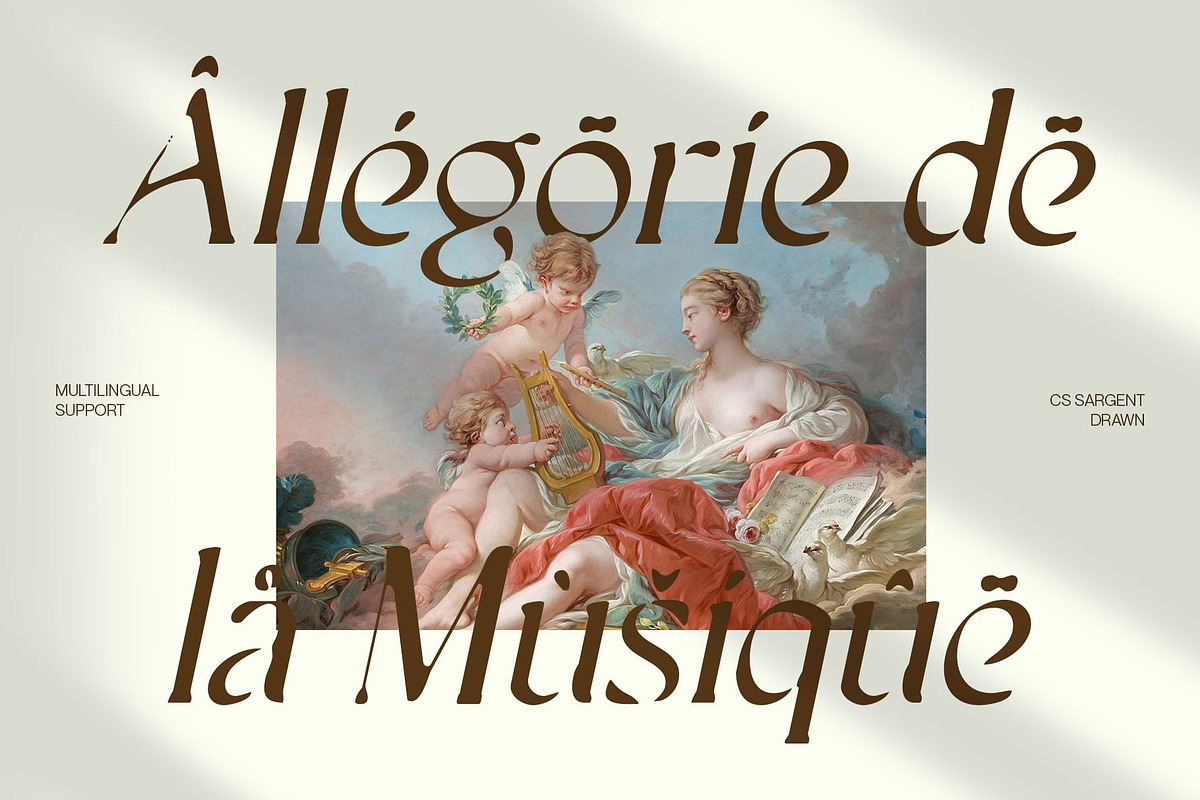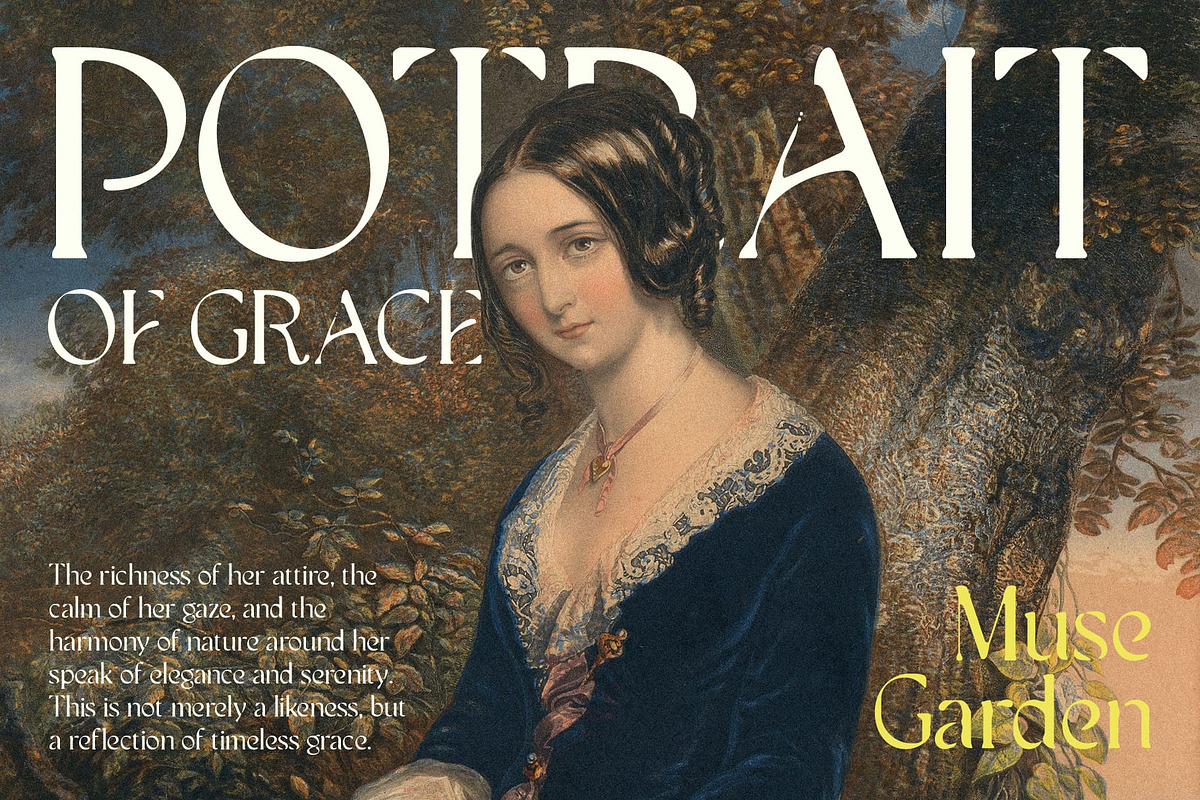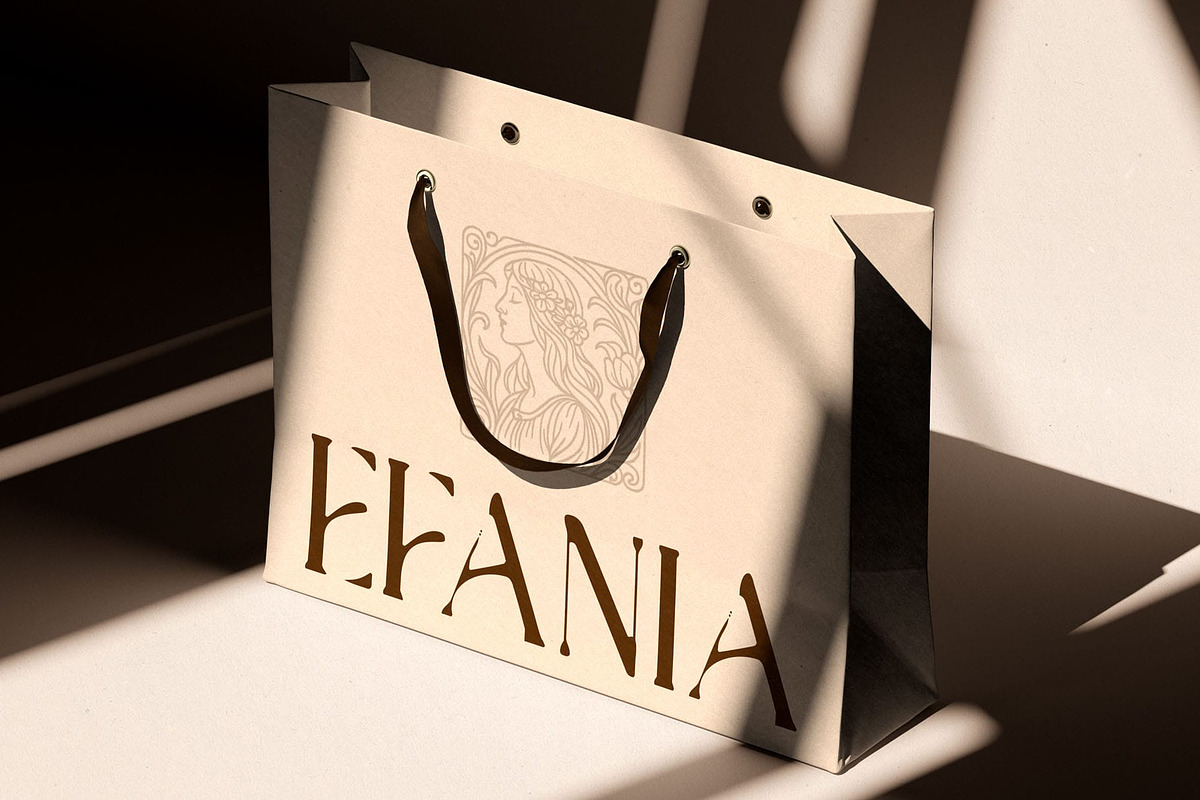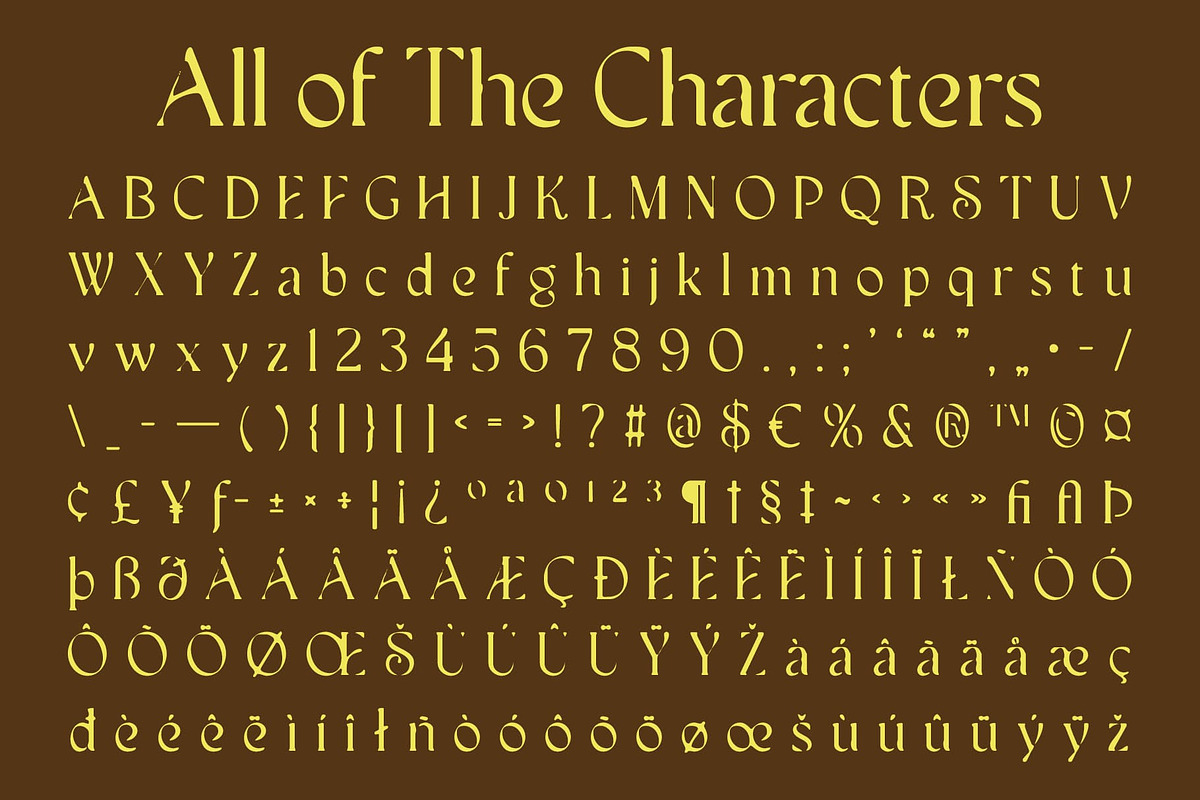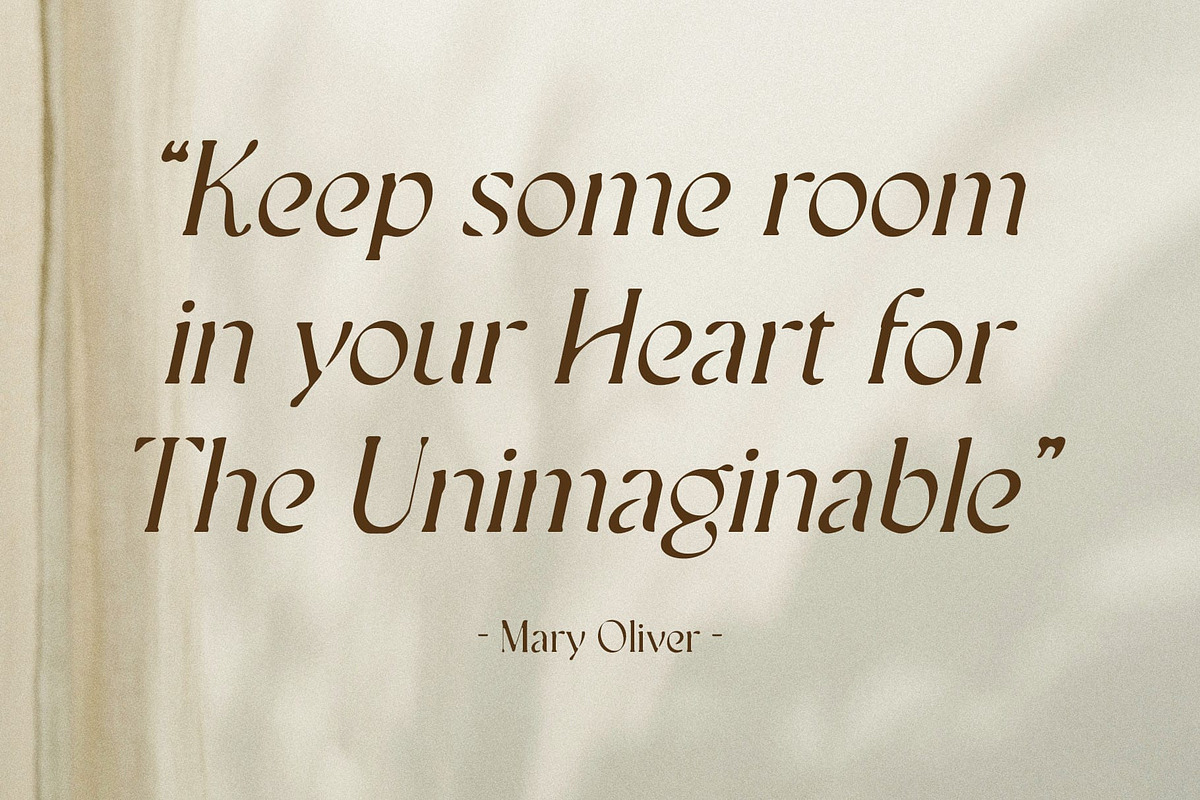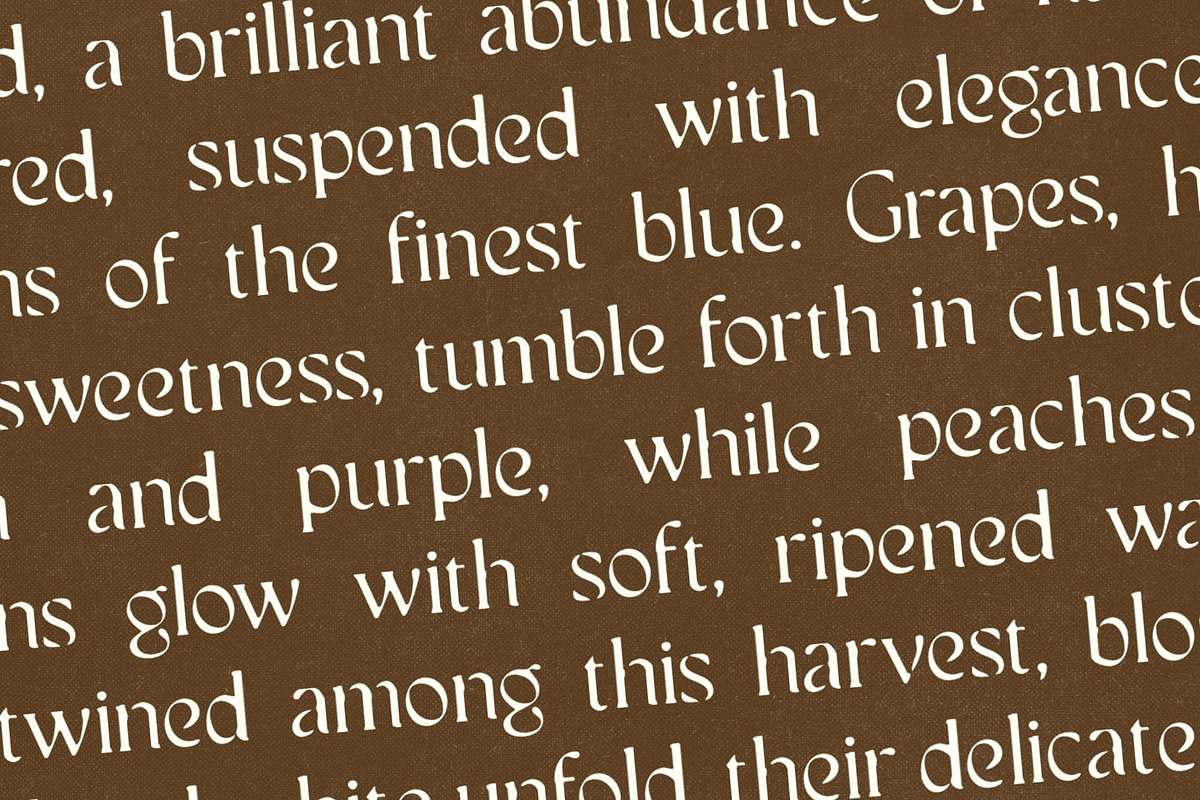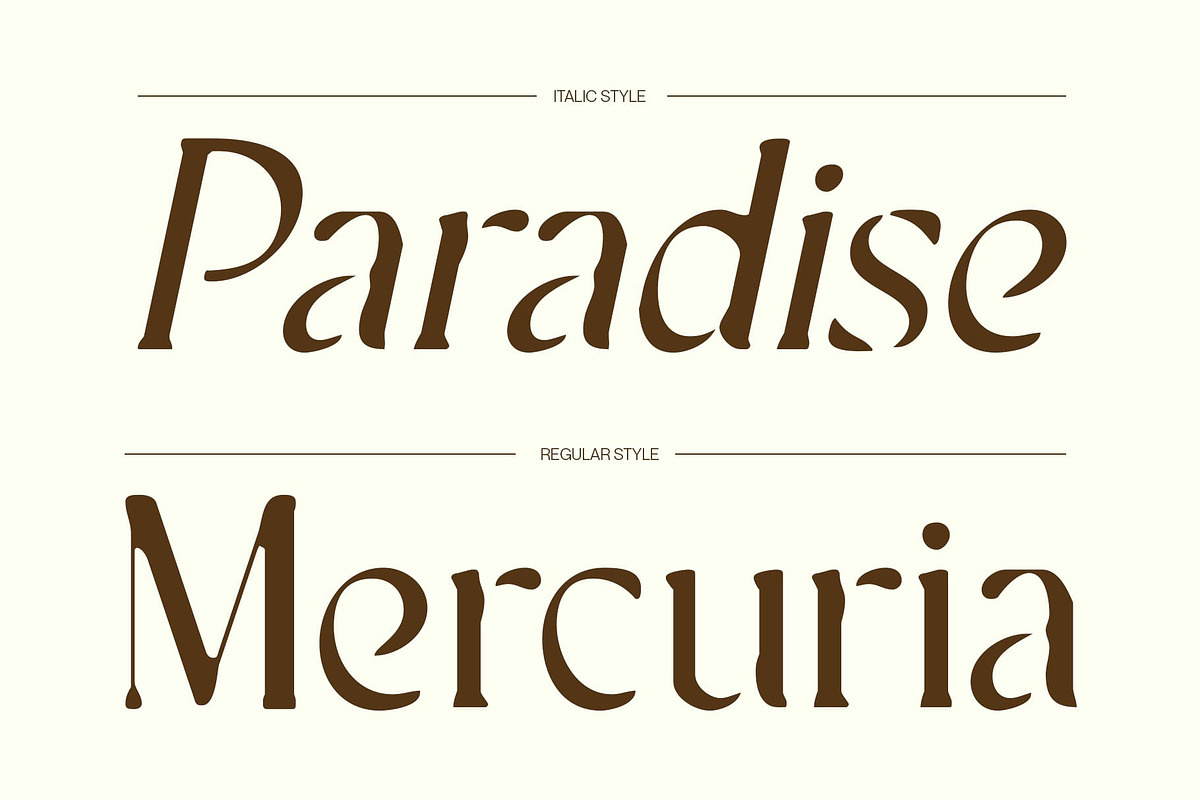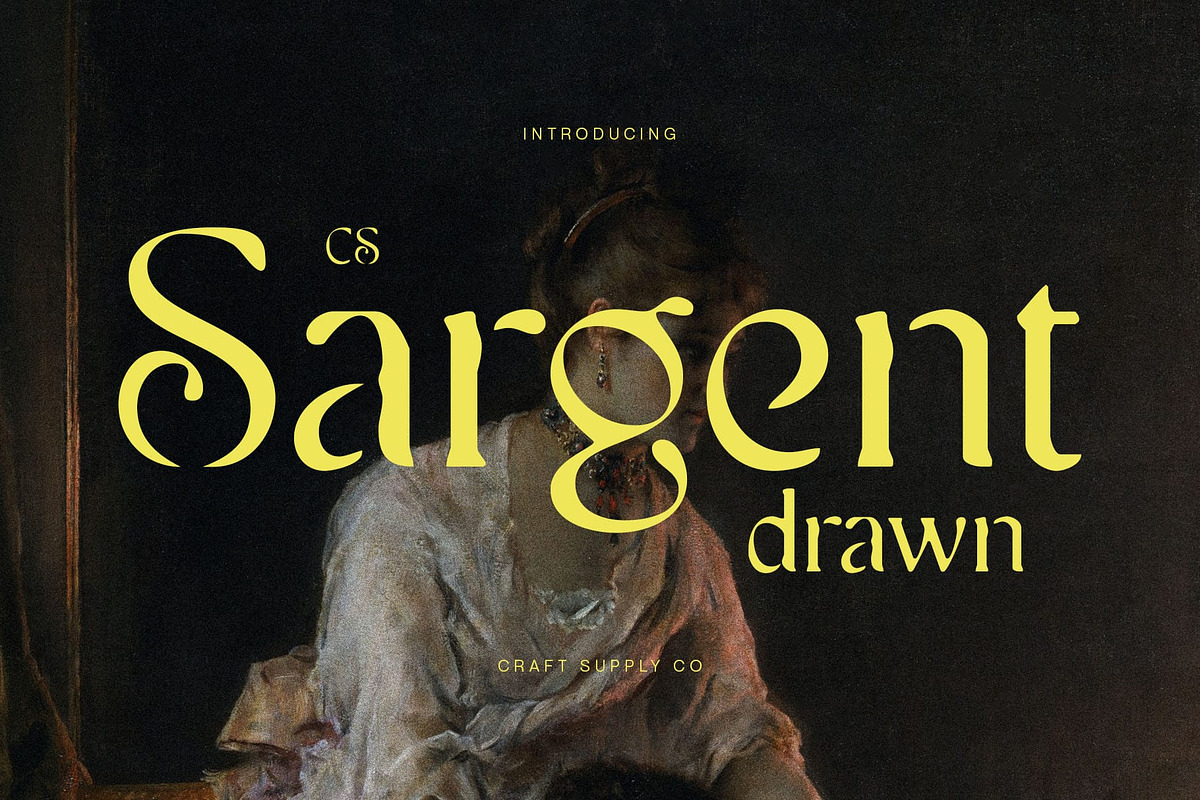
CS Sargent Drawn
CS Sargent Drawn – Art Nouveau Serif: Organic Elegance with Artistic Depth and Handmade Expression
Delicate Organic Curves with Contemporary Flow This is an Art Nouveau inspired serif font that embodies graceful movement and modern elegance. Its organic curves and flowing structure give each character a sophisticated rhythm, making it a perfect choice for designs that aim to feel both timeless and current.
Handmade Texture for Artistic Character The drawn handmade effect enriches the font with personality, creating a sense of depth and authenticity. This artisanal quality adds expressive flair while maintaining a polished aesthetic, allowing to stand out as both elegant and approachable.
Modern Elegance Meets Versatility Balancing vintage inspiration with modern sensibility, this font adapts to a wide range of applications. Its Art Nouveau influence brings beauty and charm, while its clean sans serif foundation ensures clarity and contemporary usability.
Ideal for Editorials, Posters, and Branding From editorial layouts and striking posters to refined branding projects, delivers captivating style. Its combination of artistic detail and smooth readability makes it an excellent choice for designers seeking sophistication with expressive personality.